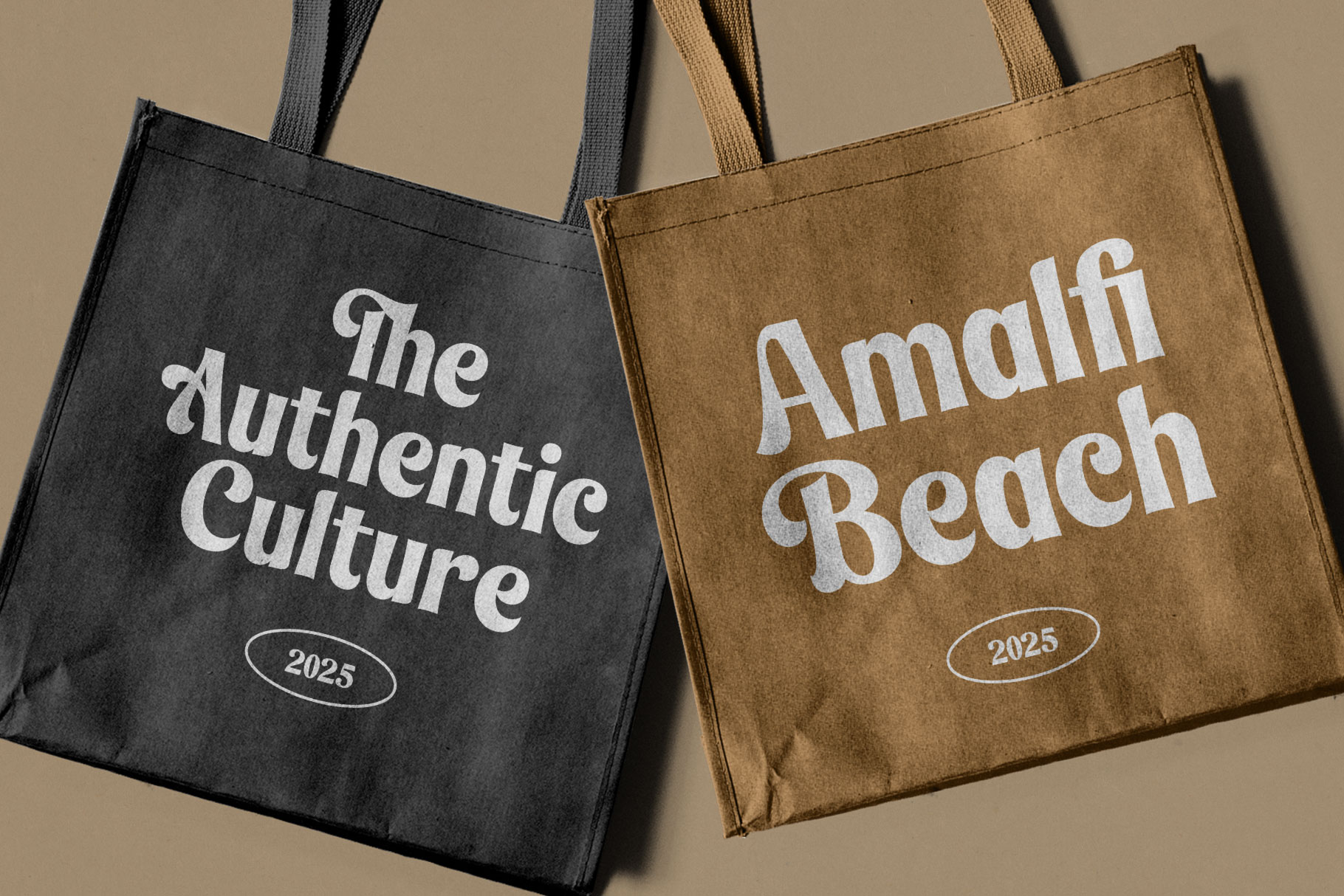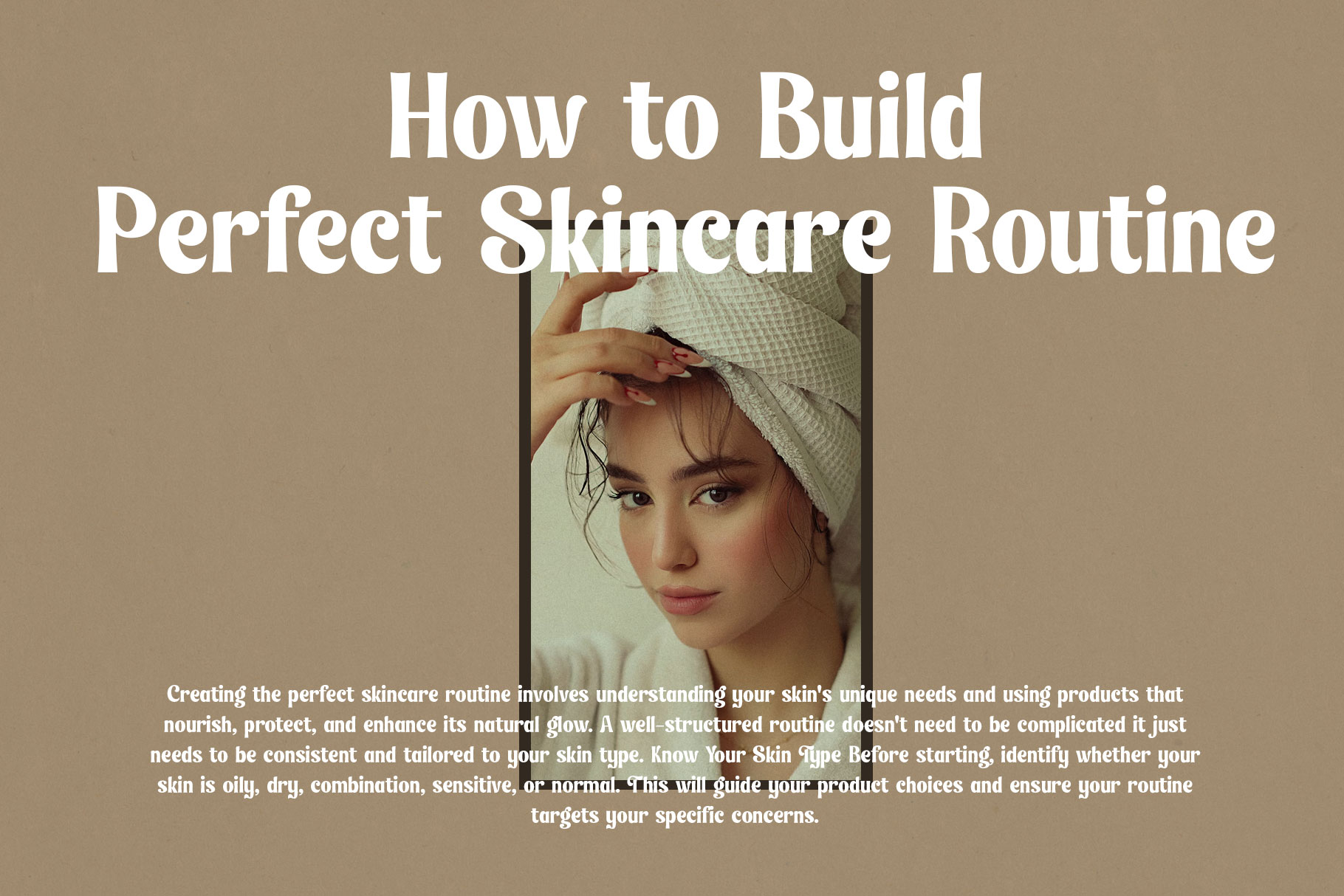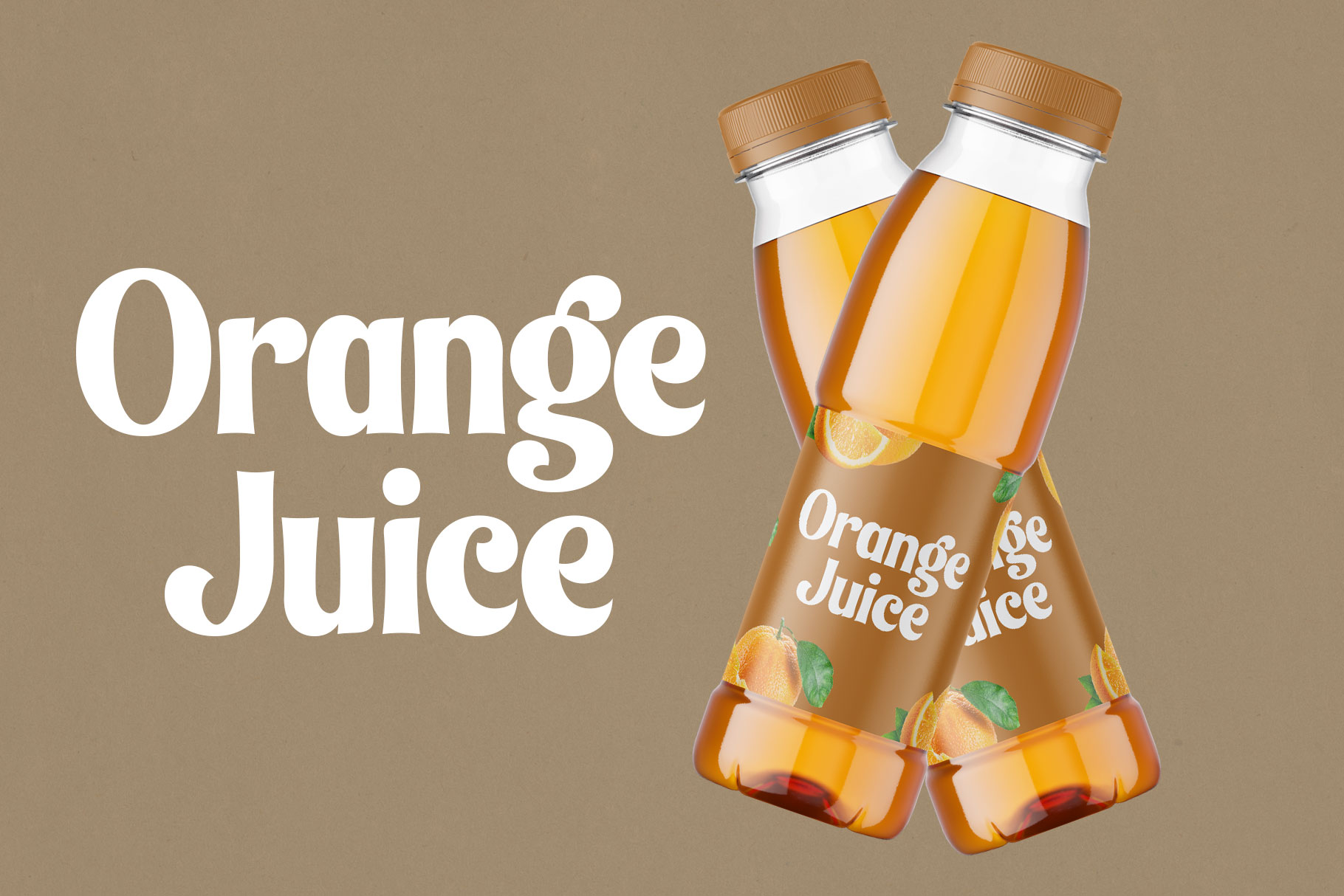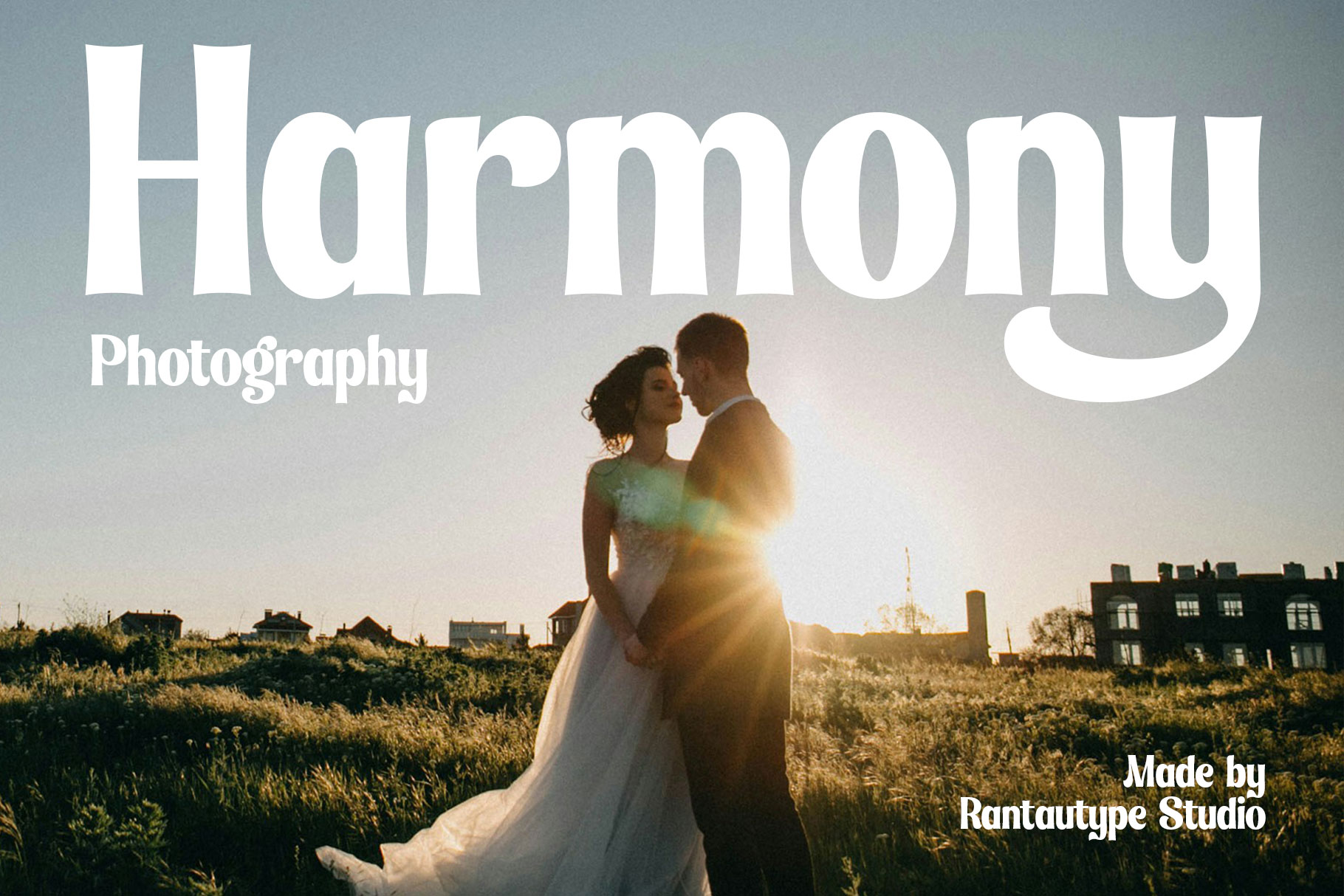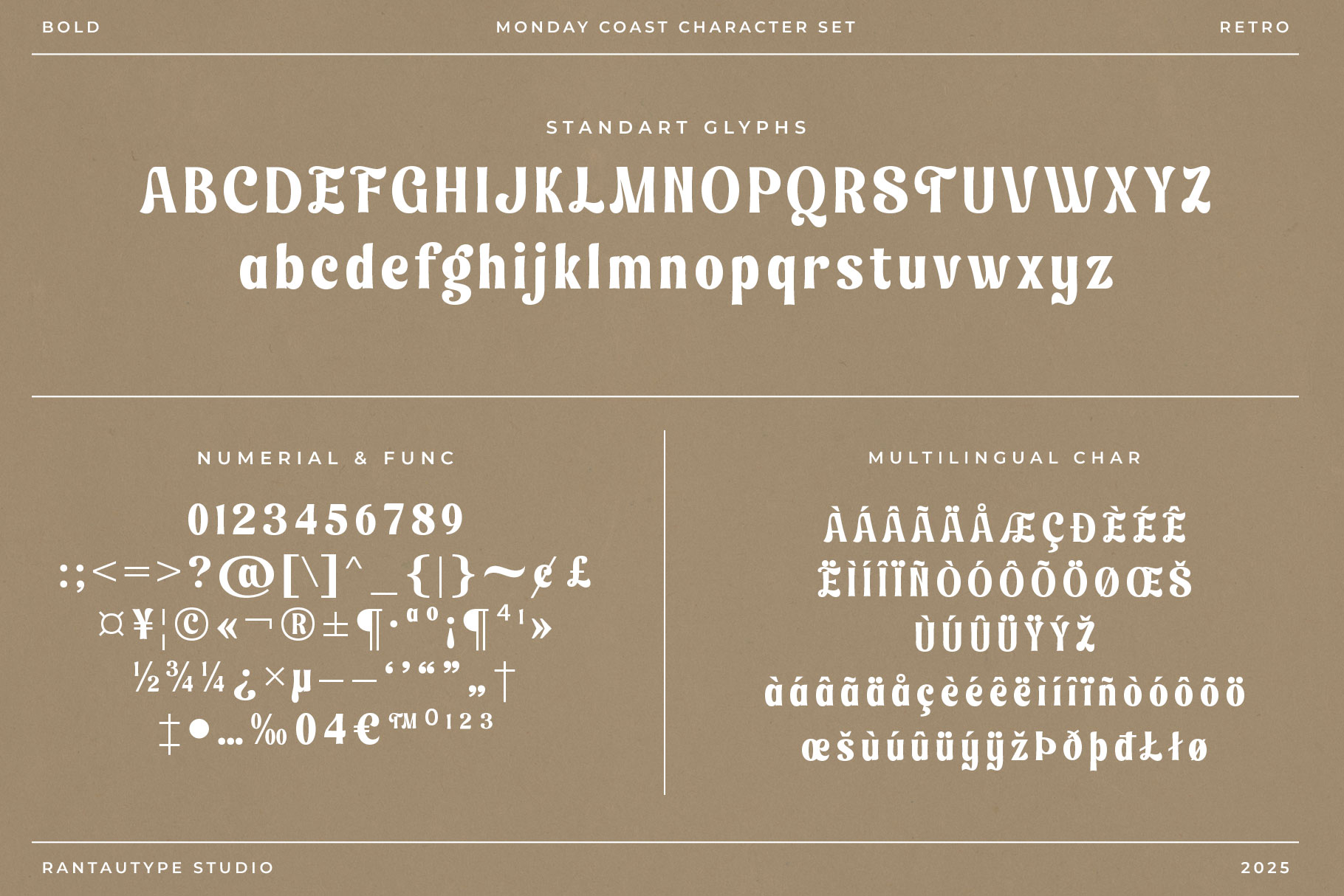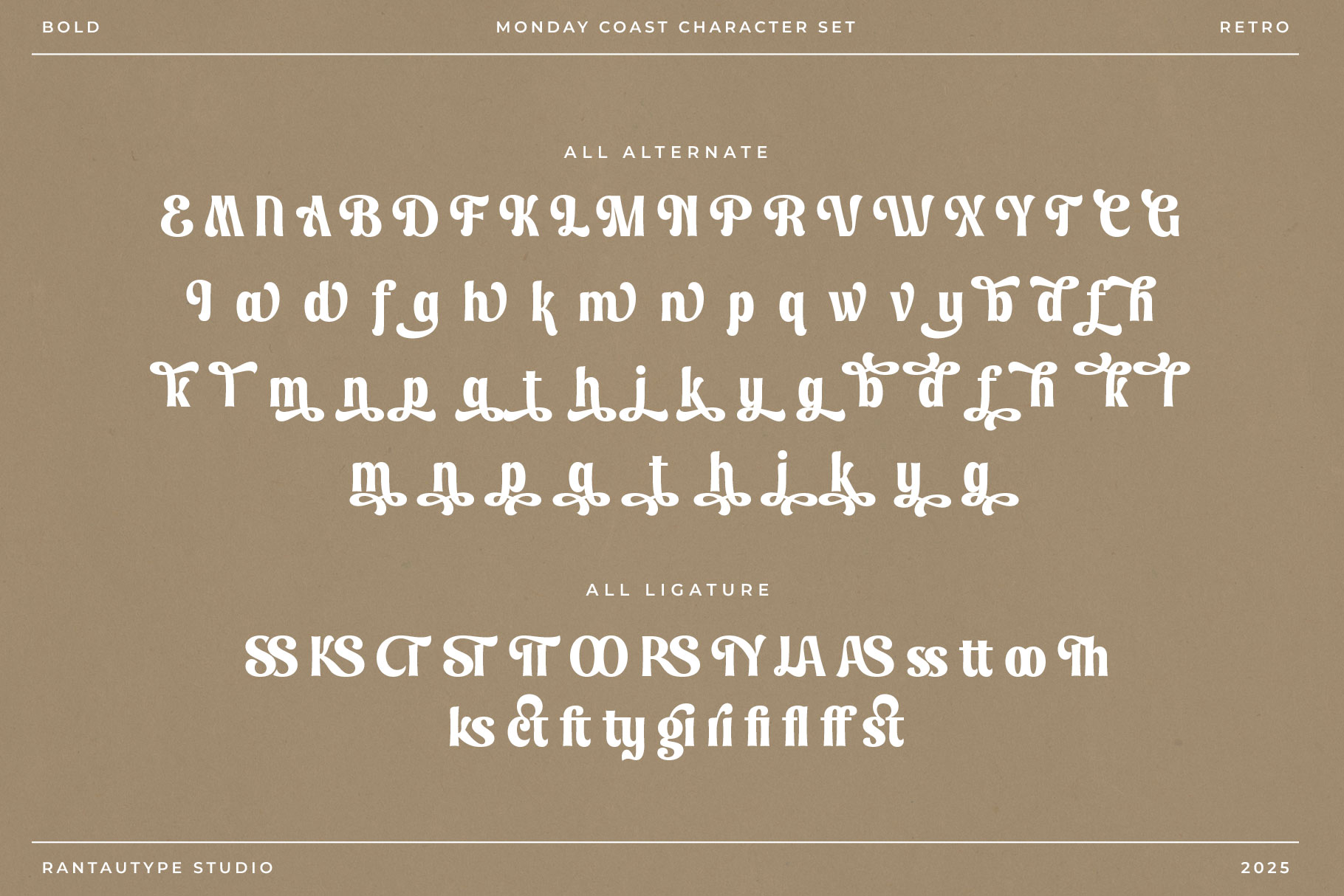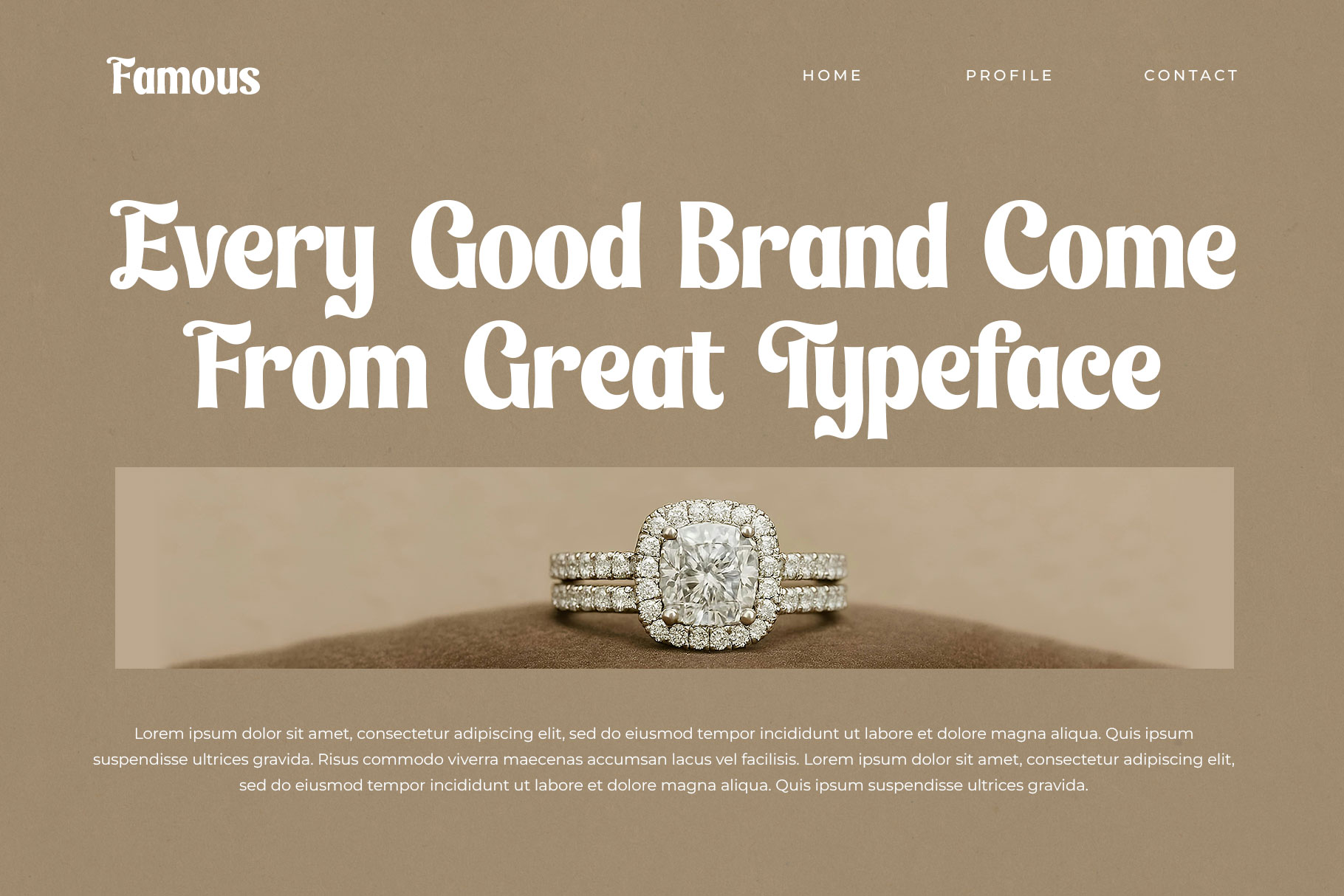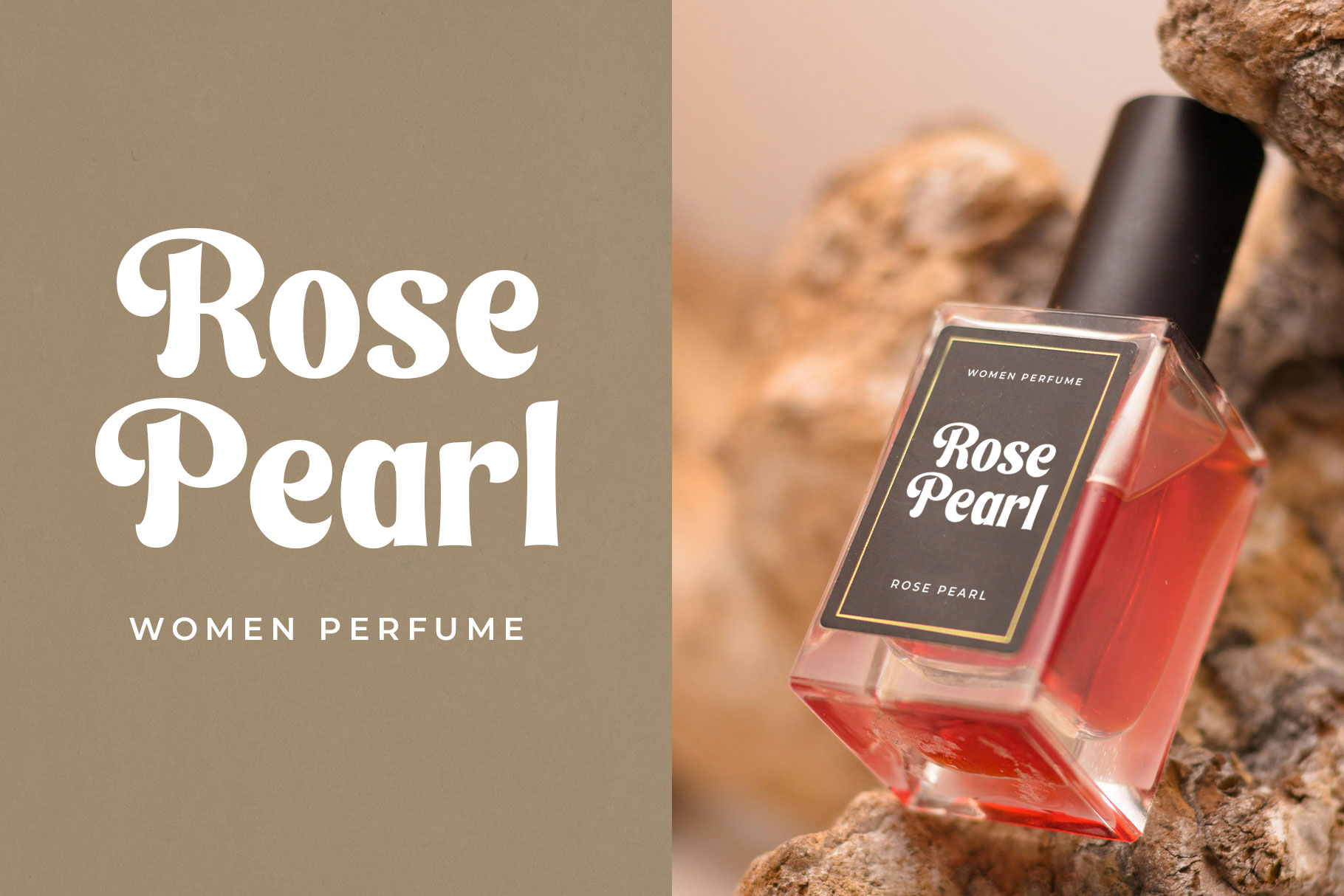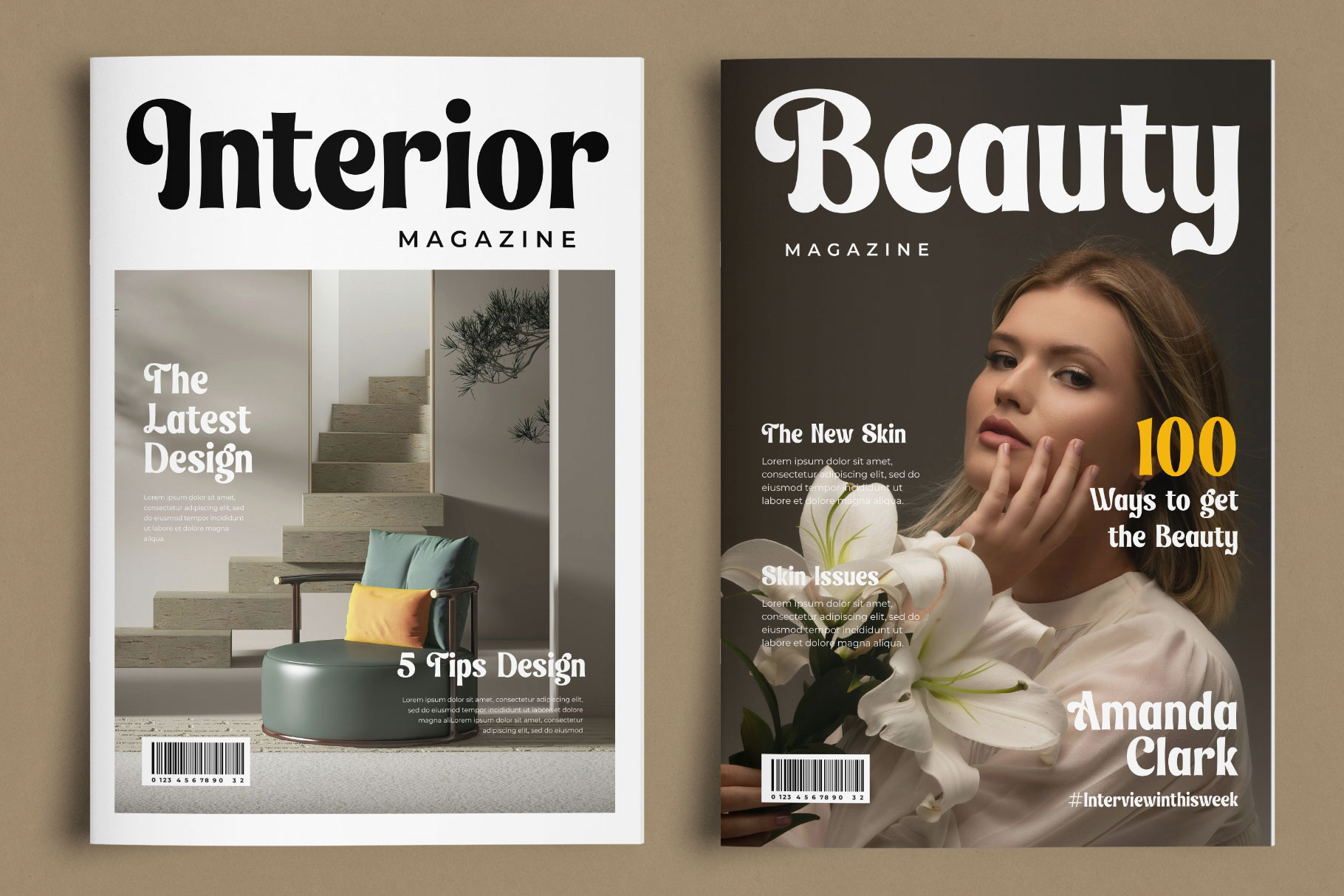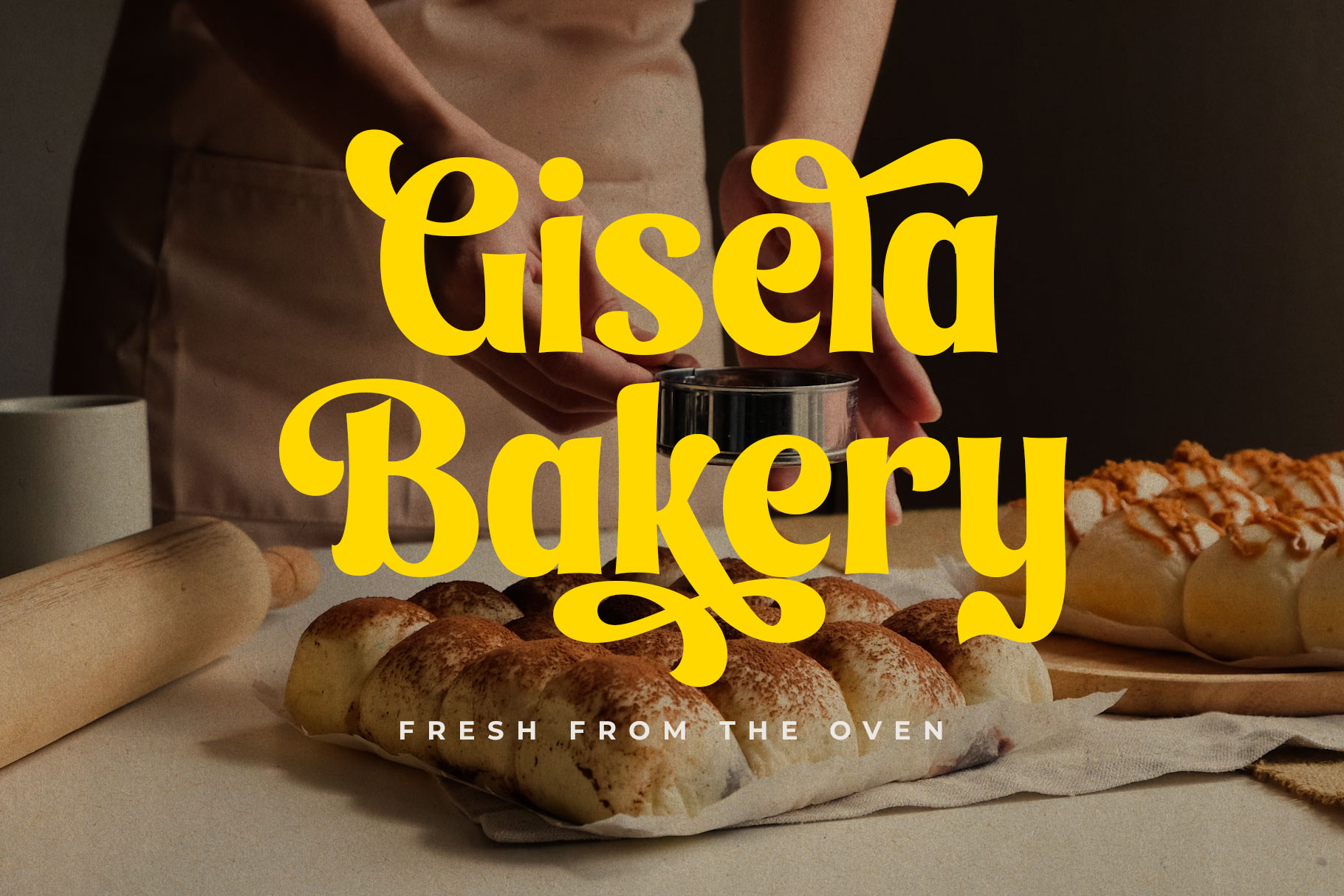
Monday Coast Retro Display Font
Monday Coast is a vibrant and eye-catching typeface that brings a nostalgic charm to modern design. Monday Coast is a perfectly choice for any creative endeavor, chic, lifestyle design such as logotype, advertisements, watermark on photography, stationery, branding project, display and magazine, invitation, corporate brand, product design, label, business project and many other project with retro touch.